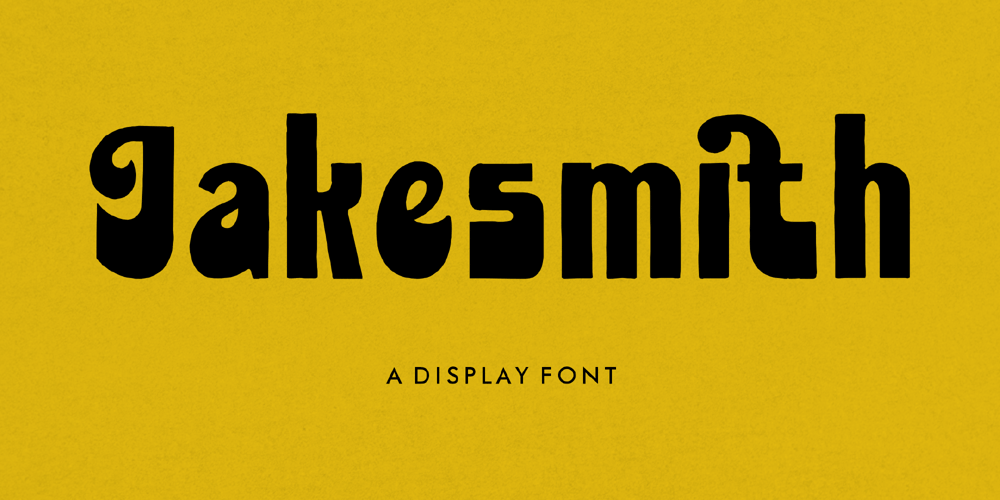
Jakesmith Font Family was designed by Heru Utama Putra and published by Letterena Studios. Jakesmith contains 2 styles and family package options. Jakesmith is a retro-inspired display font that exudes a cool and vintage vibe. With its bold and playful letterforms, it captures the essence of the past while maintaining a modern edge. Perfect for posters, logos, and headlines, Jakesmith adds a touch of nostalgia and personality to your designs. Stand out with this unique and eye-catching font.